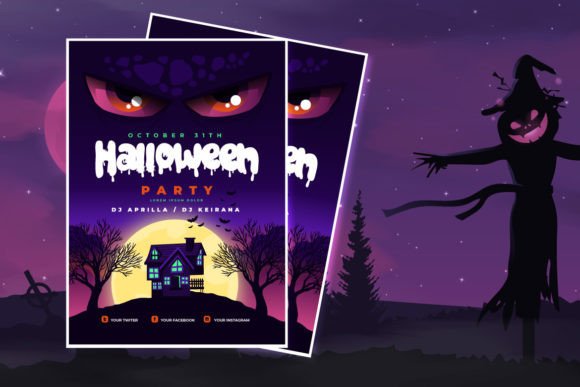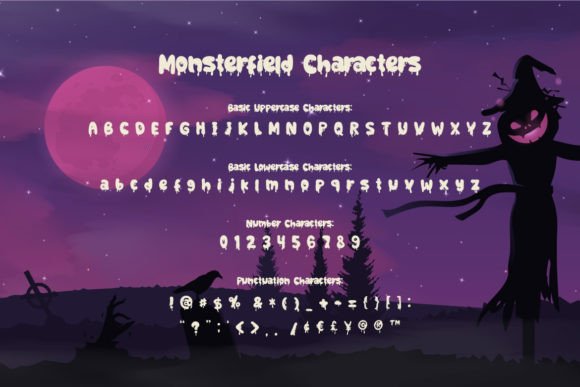
Introduction to Monsterfield Font
As a designer, you know the feeling of staring at a blank page, searching for that perfect font to bring your creative project to life. It’s like the difference between a dimly lit room and a bright, sunny day – one sparks inspiration, the other, not so much. For those moments, I’m excited to introduce you to a game-changer: the Monsterfield Font.
This free download is a treasure trove of spooky fun, perfect for Halloween-themed designs or any project that needs a touch of darkness. With its high-quality design, you can create a transparent background that lets your imagination shine through, making it an invaluable resource for designers looking to add a unique twist to their work.
Key Features of Monsterfield Font
- High-quality, professional font suitable for creative projects and designs.
- Designed with a unique, bold style that sets it apart from other fonts, making it perfect for adding a touch of personality to your work.
- Available in multiple font sizes and resolutions, allowing for flexibility in its application across various design projects.
- Perfect for use in logos, branding, and other creative projects where a high-quality, unique font is required.
Honest Review: Monsterfield Font
I recently stumbled upon the Monsterfield Font, and I must say it’s been a great addition to my design resource library. As a designer, I’m always on the lookout for high-quality fonts that can elevate my creative projects. The Monsterfield Font certainly delivers.
- High-quality design with intricate details, perfect for adding a unique touch to your design.
- Transparency options for the background, allowing for seamless integration with any design.
- ⚠️ Limited font sizes and weights, which might limit its versatility in certain projects.
- ⚠️ Some users may find the font a bit too bold, so it’s essential to use it sparingly.
Overall, I’m impressed with the Monsterfield Font, and I think it’s an excellent choice for designers working on creative projects. With its high-quality design, transparency options, and free download, it’s definitely a valuable addition to any design resource library. Just be mindful of its limitations, and you’ll be all set to unleash your creativity with this fantastic font.
Tips for Getting the Most Out of Monsterfield Font
When using Monsterfield Font, consider the following tips: use the font in combination with other design elements, experiment with different font sizes and styles, and use the font with a transparent background to make it stand out. By following these tips, you can get the most out of the Monsterfield Font and create a high-quality design that meets your needs.
The Monsterfield Font is a versatile font that can be used in a variety of creative projects, including logos, business cards, and marketing materials. It’s also a great choice for personal projects, such as party invitations and social media graphics. With its unique design and high-quality rendering, the Monsterfield Font is a valuable design resource that can help you take your